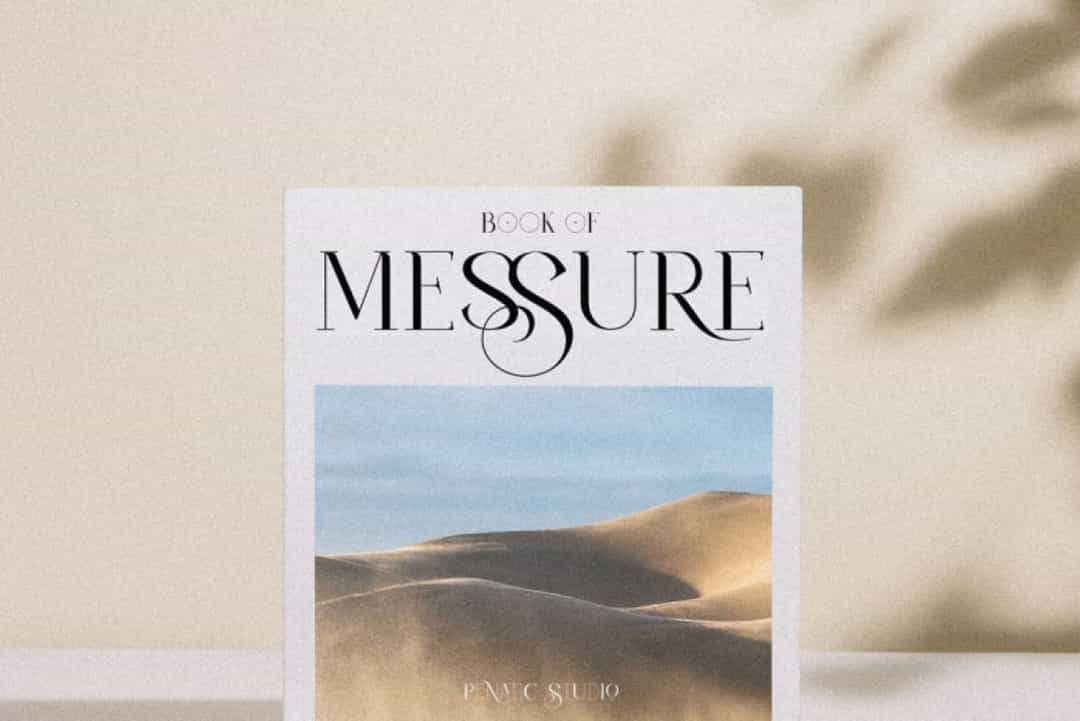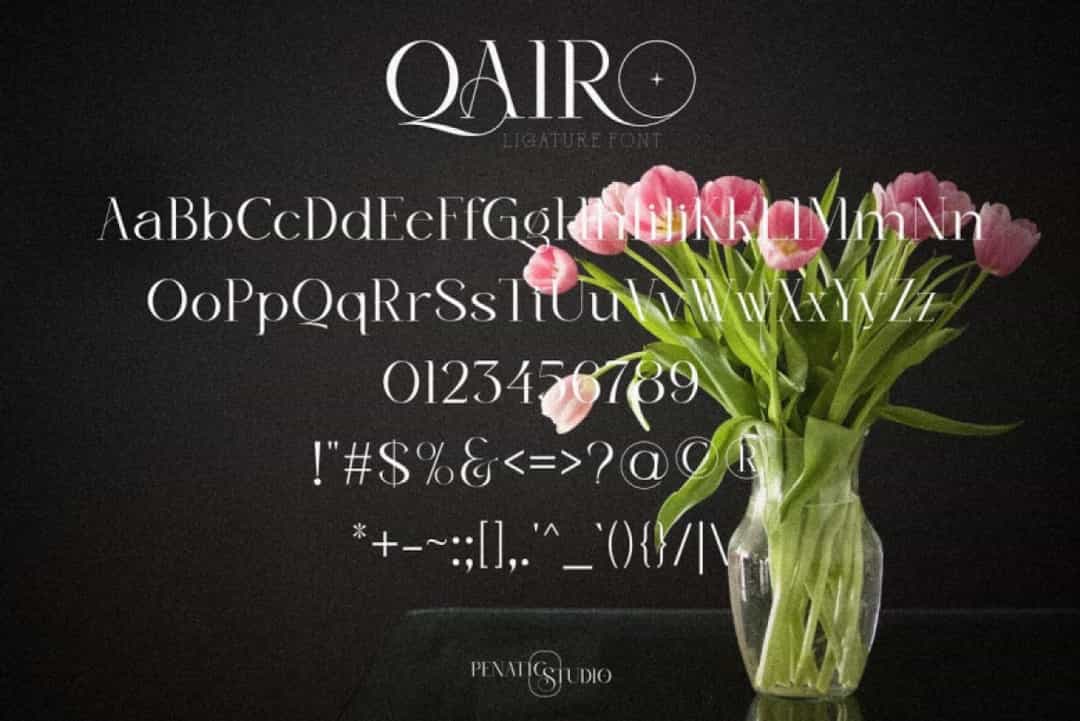
Qairo Ligature Font is an elegant contemporary serif font which uses various ligatures and font substitutions to allow users to easily create different designs or variations with letters with ease. Perfect for applications such as branding, invitations, magazines logo designs etc.